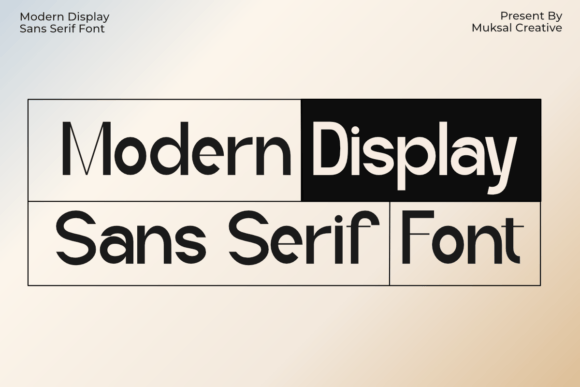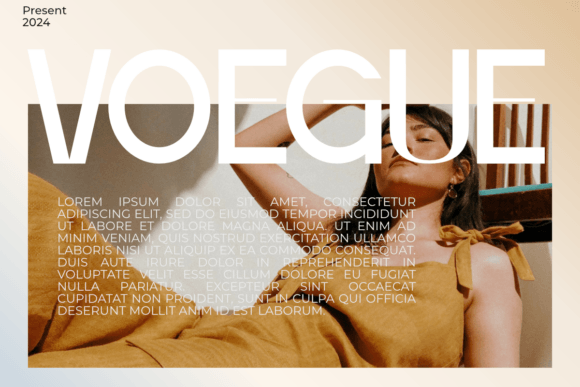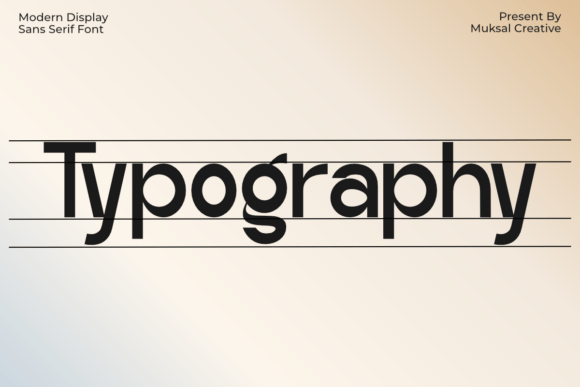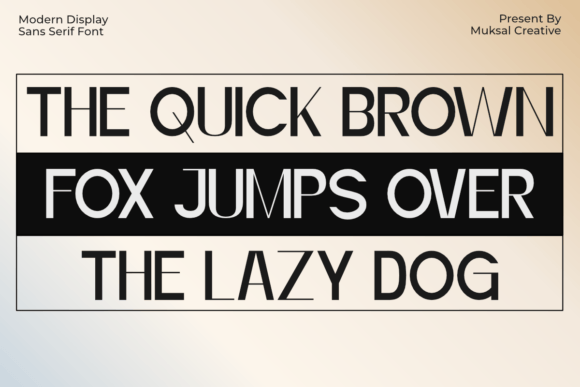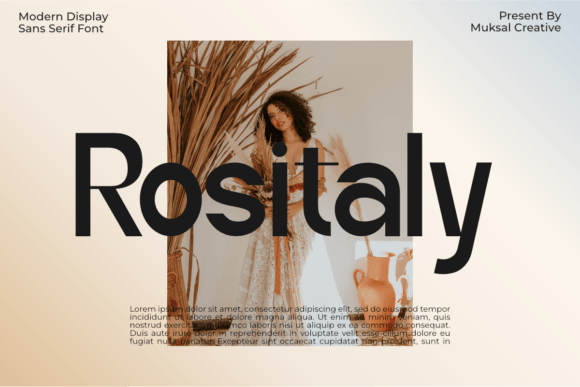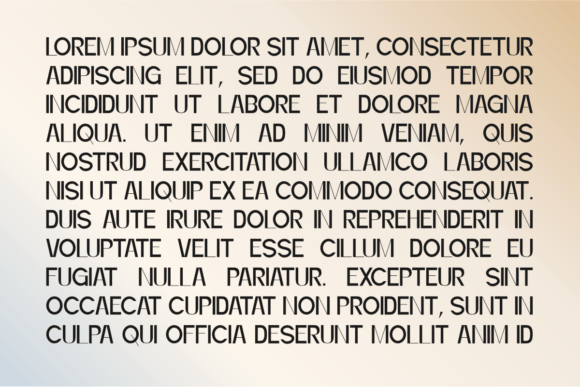
Introduction to Milara Font
Have you ever found yourself staring at a blank canvas, searching for the perfect font to bring your creative vision to life? For designers, this moment of discovery is a crucial one, as the right font can elevate an entire project and leave a lasting impression on the viewer. That’s exactly what the Milara Font aims to do – evoke a sense of luxury and professionalism in every use, making it an ideal choice for branding, editorials, or formal invitations.
With its elegant and formal design, Milara Font is a valuable resource for designers who want to add a touch of sophistication to their creative projects. Whether you’re working on a freelance project or a large-scale design initiative, Milara Font is a high-quality design resource that’s sure to impress. And the best part? It’s available for free download, making it an accessible option for designers of all levels.
But what sets Milara Font apart from other fonts? Its balanced proportions and smooth letterforms create a modern feel that’s perfect for a wide range of design applications. Plus, with a transparent background, you can easily incorporate it into your design without worrying about distractions. Whether you’re a seasoned designer or just starting out, Milara Font is a must-have in your design arsenal.
Key Features of Milara Font
- High-quality design with a unique, creative style perfect for artistic projects and presentations.
- Features a transparent background, allowing for flexibility and versatility in your design projects.
- Designed with a focus on readability and aesthetics, making it an excellent choice for creative projects and presentations.
- Supports a wide range of languages, making it an ideal design resource for global creative projects.
Honest Review: Milara Font
I recently stumbled upon the Milara Font while searching for a free download to spice up my creative project. As a designer, I was excited to give it a try.
What works well: ✨ The Milara Font has a unique and elegant feel to it, making it perfect for a variety of design projects. The transparent background option is also a great feature, allowing me to easily integrate it into my designs.
Features that caught my attention:
- High quality font that’s perfect for creative projects
- Transparent background option for seamless integration
Limitations: ⚠️ While the Milara Font is a great addition to any design library, it does have some limitations. The font family is relatively small, and there are limited styles to choose from.
Overall, I’m impressed with the Milara Font. It’s a great free download that can add a touch of elegance to any design project. While it may not be perfect, it’s definitely a solid addition to any design library.
For getting the most out of Milara Font, try pairing it with other design resources to create a cohesive look. Common use cases include wedding invitations, business cards, and social media graphics. With its high quality and transparent background, Milara Font is a versatile design resource that can be used for a wide range of creative projects.